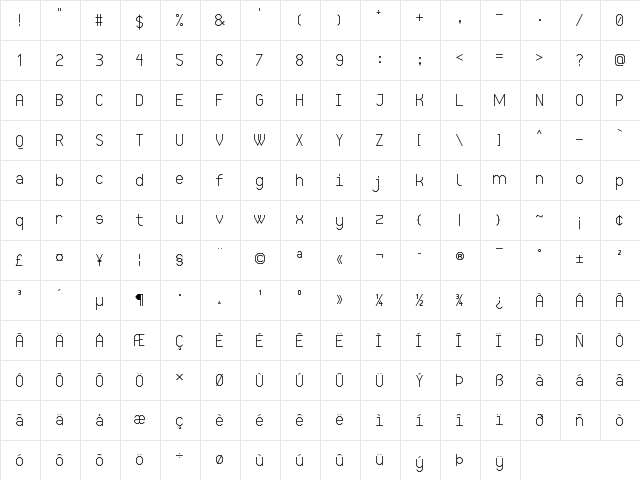
The Plot Regular
| Designer | Alexander Sperl |
Design Context for The Plot Typeface
The Plot takes a measured approach to typography — its balanced proportions and neutral character make it a reliable workhorse for both digital and print work.